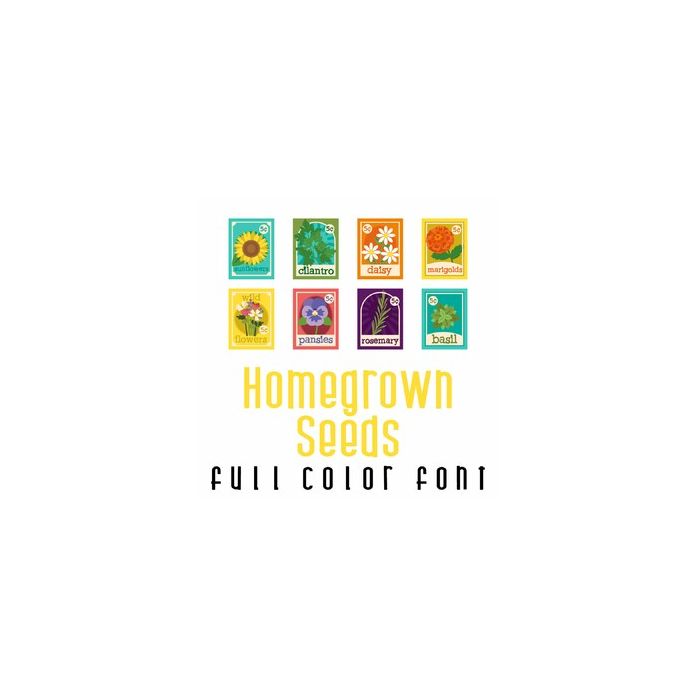
This fun full color doodlebat font features beautiful floral and herb seed packets. Perfect for cards, crafts, gifts, decor, scrap book pages, planner stickers and more!